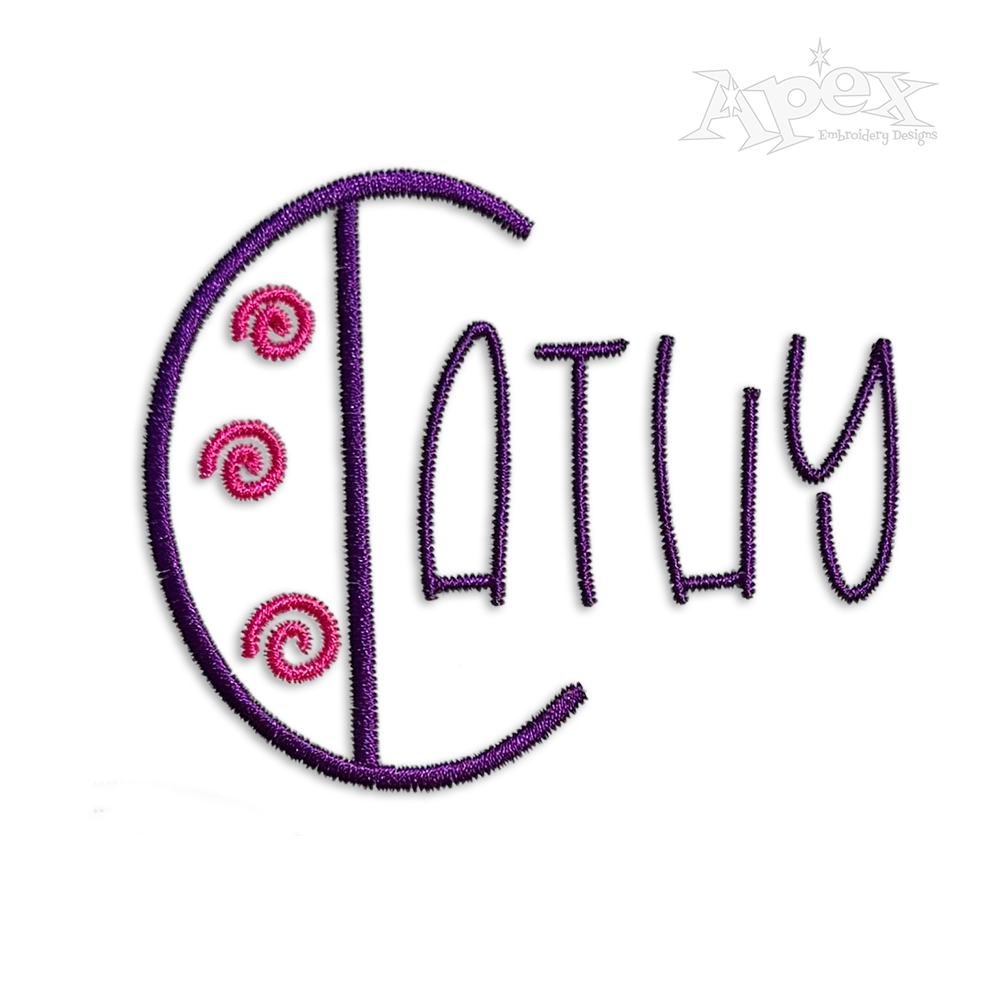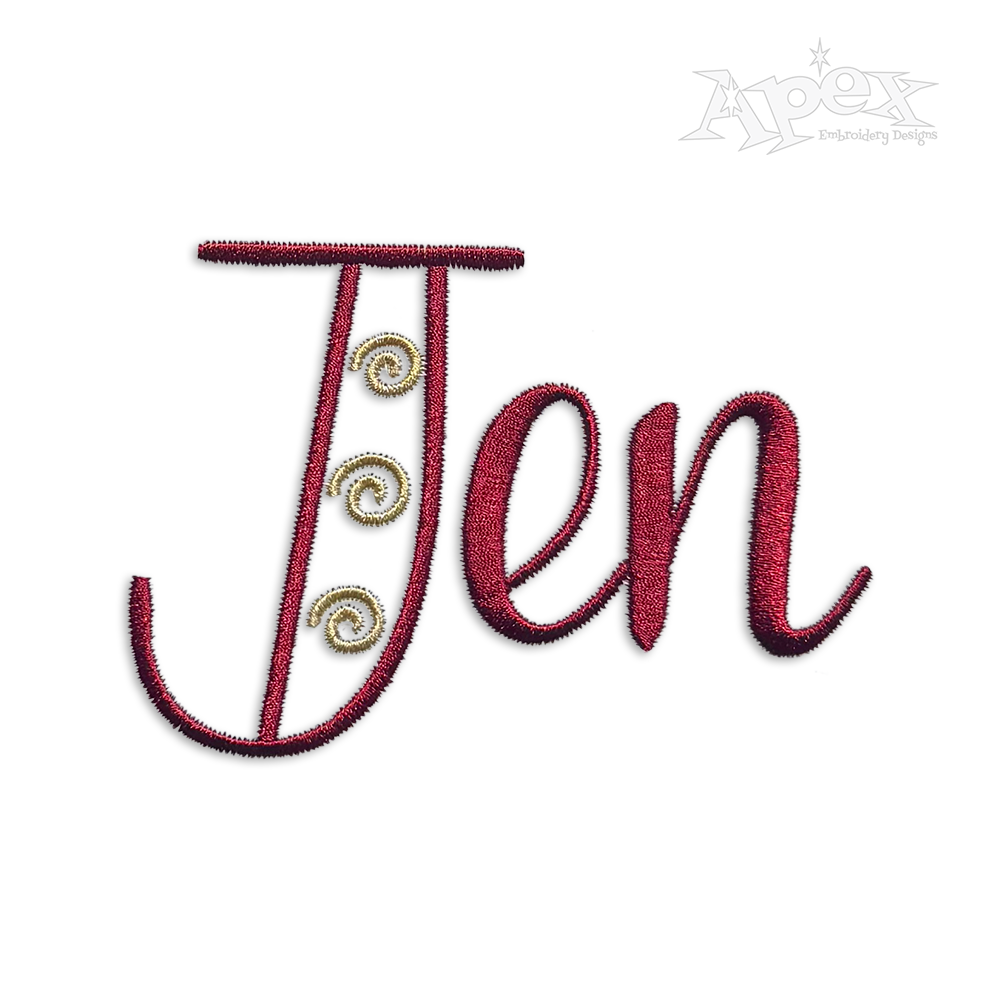
Doodle Swirl Embroidery Font
Born from the effortless rhythm of pen gliding across parchment, the Doodle Swirl Embroidery Font captures the spontaneous magic of a hand-sketched flourish and translates it into pure textile artistry. In our studio, we wanted to bridge the gap between whimsical folk charm and sophisticated bespoke monogramming. Each letterform is infused with a spirited, pirouetting energy—loops that leap, tails that curl with delightful abandon, and a lively silhouette that turns every initial into a joyful focal point. It evokes sun-dappled afternoons, garden party celebrations, and personalized gifts made with abundant heart.
Designed specifically to make a bold, decorative impact, this typography set includes generous capital letters crafted for statement monogramming:
- Upper Case Letters: Scaled to 3-inch stitch heights (lowercase letters are not included in this display collection).
Project Ideas for Doodle Swirl Embroidery Font
The organic, swirling lines of this font lend an uplifting, artisanal personality to both casual and celebratory sewing projects:
- Linen Cocktail & Dinner Napkins: Add a singular, joyful letter to custom table linens for celebratory brunches, garden soirees, or housewarming gifts.
- Bespoke Resort & Casual Wear: Embroider oversized monograms onto the back yokes of denim jackets, chambray beach cover-ups, or sun hats.
- Personalized Nursery Accents: Stitch cheerful single initials onto quilted heirloom baby blankets, decorative nursery pillow shams, and laundry baskets.
- Canvas Market Totes: Elevate everyday heavy-duty canvas bags and weekend duffels with crisp, eye-catching personalized monogramming.
- Luxury Loungewear: Transform soft waffle robes, cosmetic pouches, and pajama pockets into bespoke, tailored treasures.
Because the 3-inch scale of Doodle Swirl carries significant artistic weight, deliberate positioning lets its swirling curves shine:
- Corner Diagonal: Angle the monogram at 45 degrees, set 1.5 to 2 inches from the hem of napkins, tea towels, or heirloom throws to let the outer swirls gracefully lead into the fabric corner.
- Center Front: Command attention by placing a single initial directly across the chest of a cozy fleece, oversized tee, or structured tote bag.
- Offset Flap & Pocket Accents: Center the design just above or directly across larger tote pockets and jacket backs where the sweeping curves have room to breathe.
- Pillow Sham Medallion: Anchor the initial directly in the geometric center of accent pillows, surrounding it with generous negative space to celebrate its hand-drawn silhouette.
Doodle Swirl Craft & Letterform Details
Translating freeform doodled sketches into disciplined embroidery requires careful structural digitizing. Hand-drawn art often features spontaneous loop crossovers and dramatic thick-to-thin transitions that can easily pinch or warp delicate textiles if not properly supported. We digitized every 3-inch character with custom-engineered underlay that stabilizes the base without stiffening the fabric, allowing the satin stitch columns to glide smoothly along the curves. The needle travel flows organically around each loop, maintaining featherlight stitch densities at intersections to prevent bulk and thread bunching. The result is a luminous, high-relief satin stitch alphabet that stitches with rhythmic perfection, preserving the playful soul of a sketch with the immaculate finish of master embroidery.